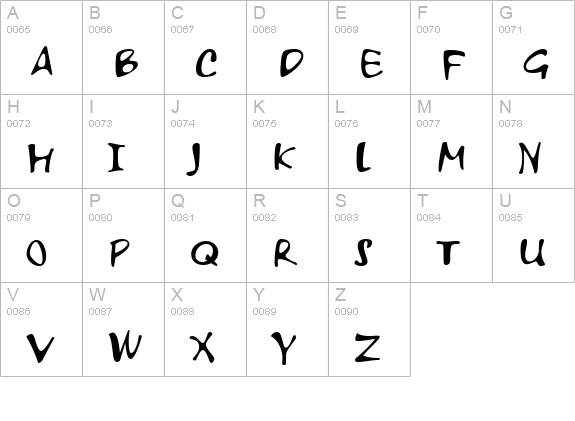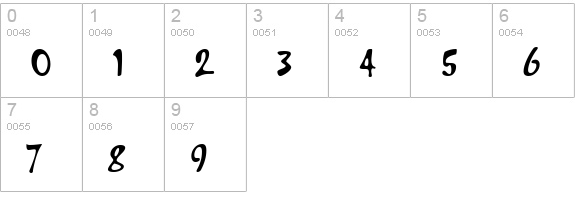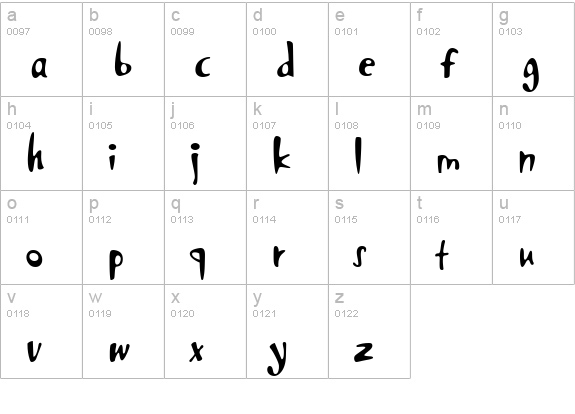
PFVertigo Unicode Font Details
PFVertigo Unicode is a modern and stylish font that is perfect for adding a touch of sophistication to your designs. With its sleek lines and contemporary look, this font is sure to make a statement. Whether you're creating a logo, designing a website, or working on a print project, PFVertigo Unicode is a versatile choice that will elevate your work to the next level. One of the best things about PFVertigo Unicode is that it is available for free. You can download this font at FontsMarket.com and start using it in your projects right away. With its wide range of characters and glyphs, PFVertigo Unicode is a font that you'll turn to again and again for all your design needs. Add a touch of elegance to your work with PFVertigo Unicode today.